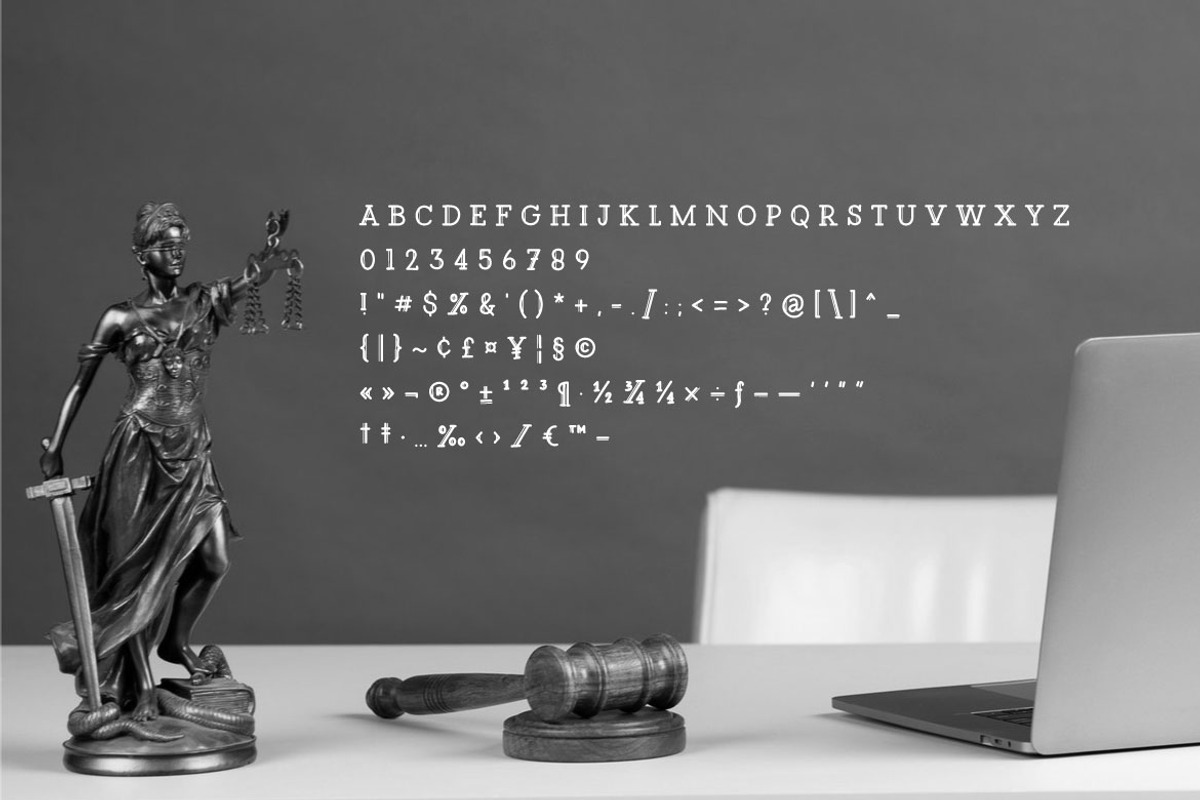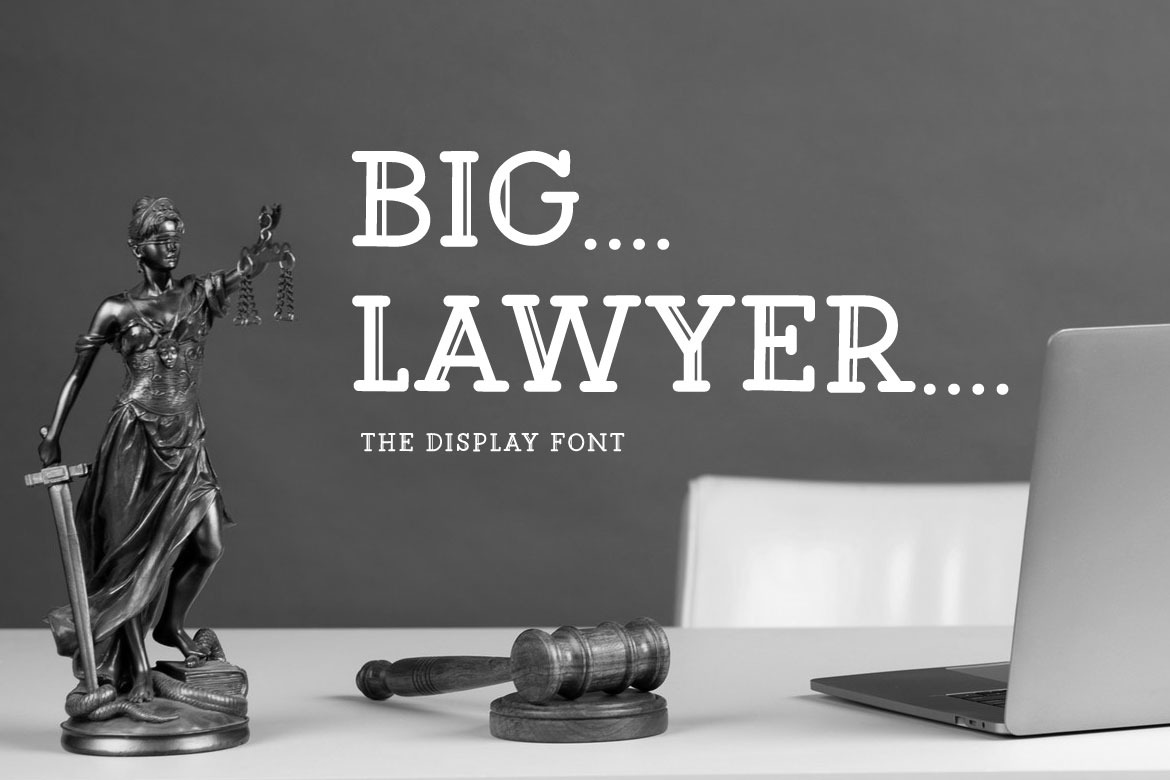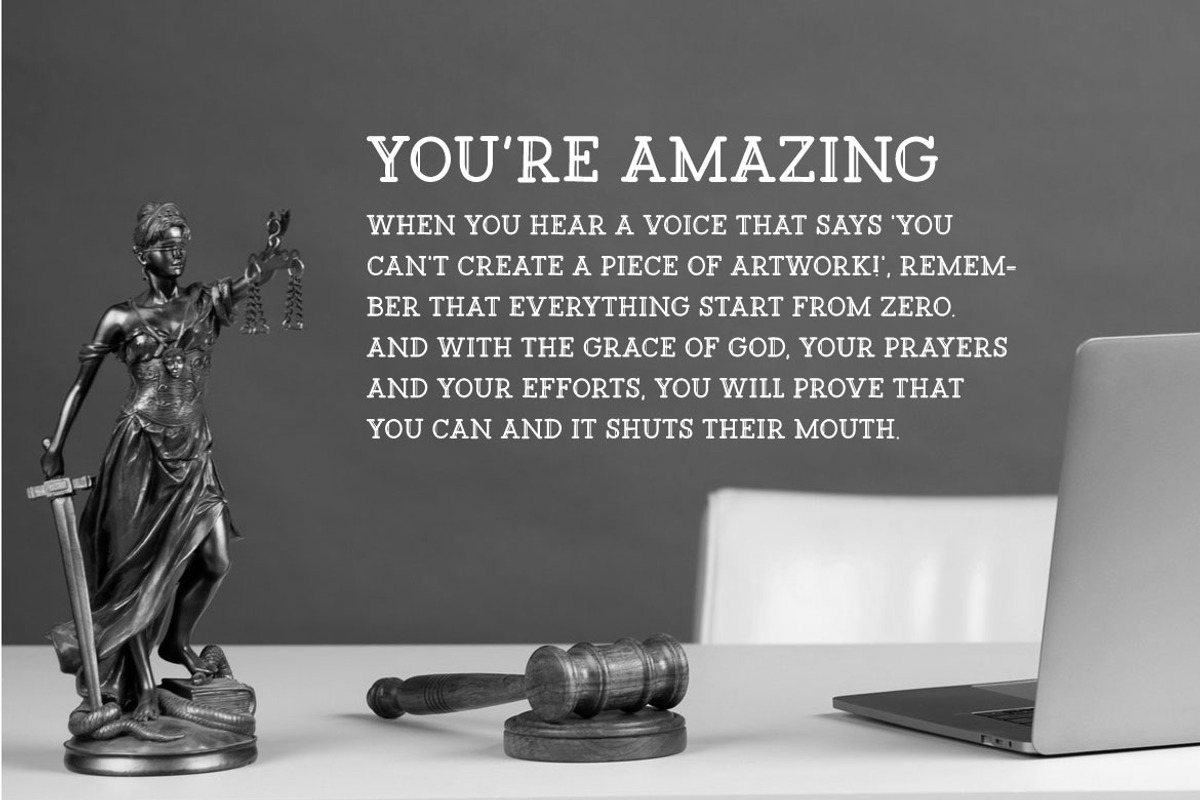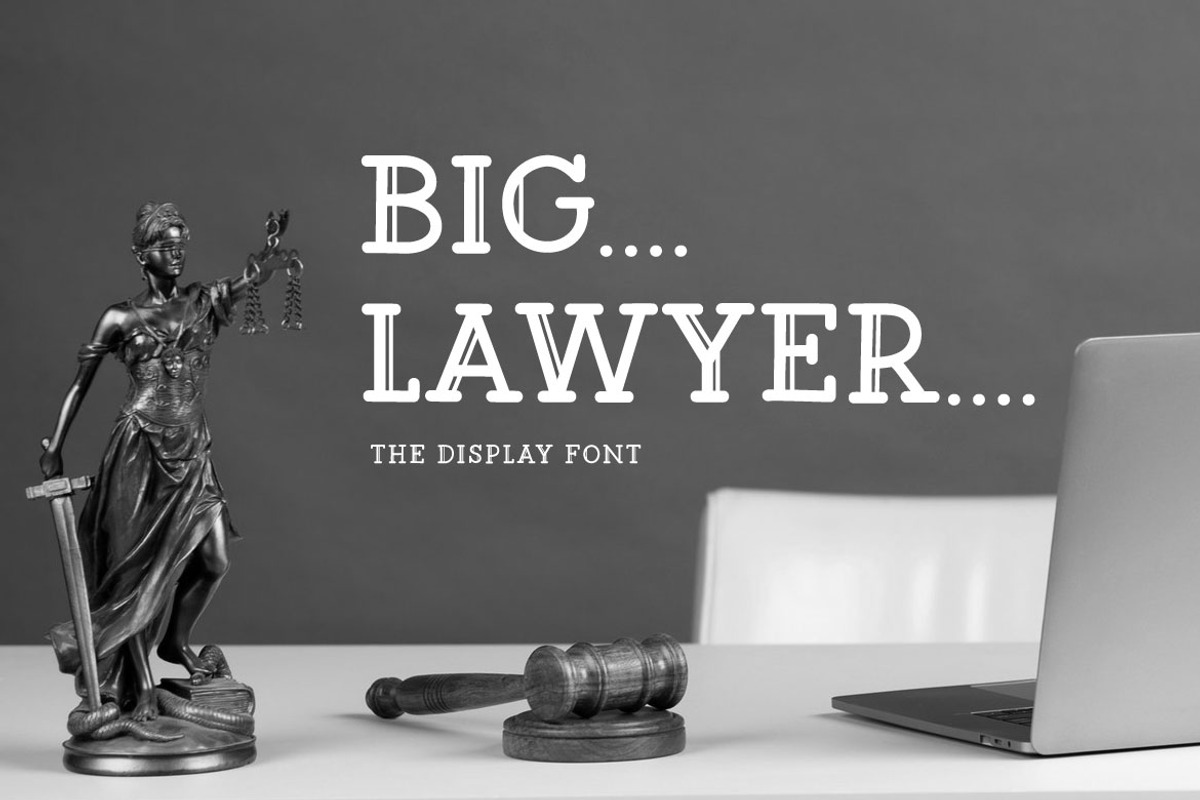
Big Lawyer - Modern Display Font
Hello! Big Lawyer is a decorative display font. Big Lawyer can be used in any works such as comic book, poster, school, flyer, book title, advertisement, social media content, logo and many more.